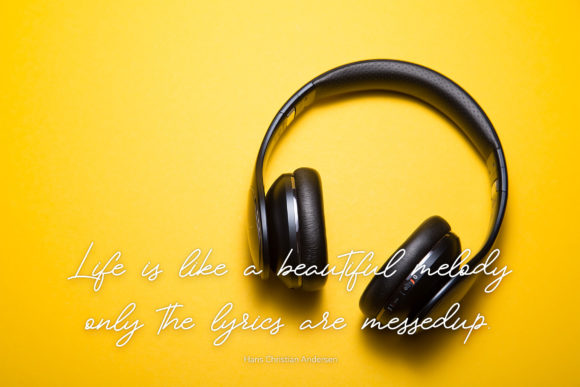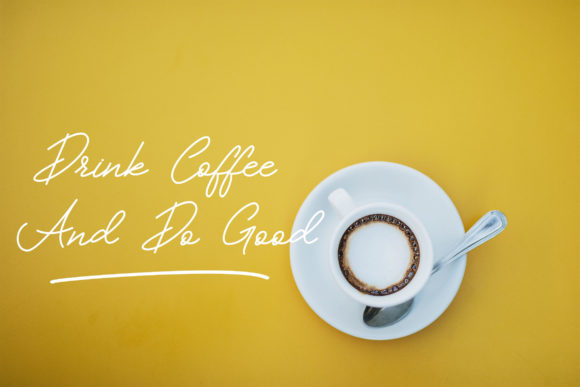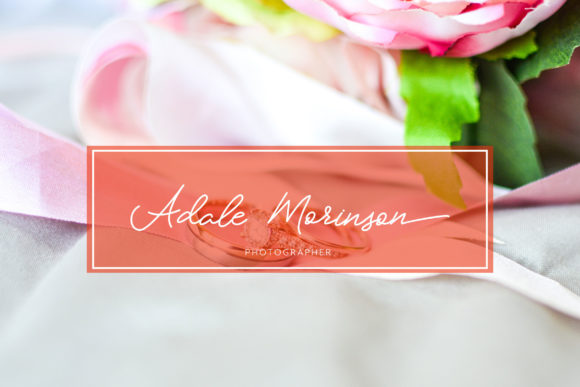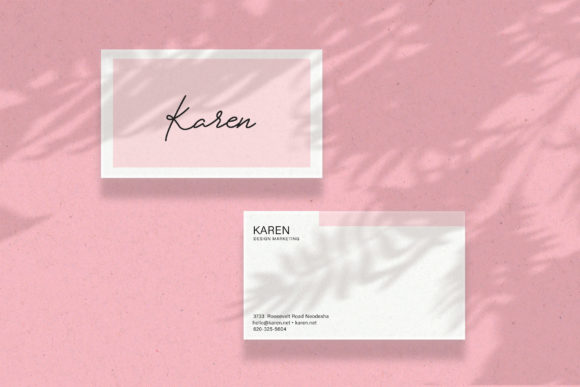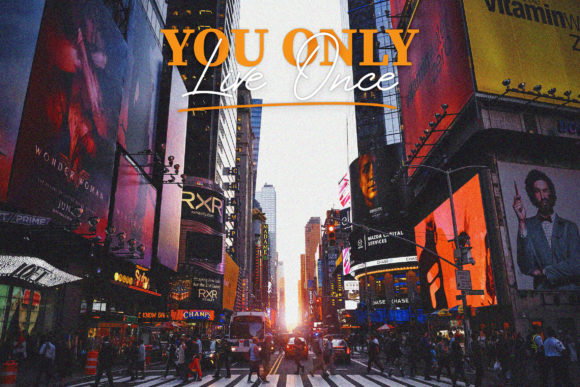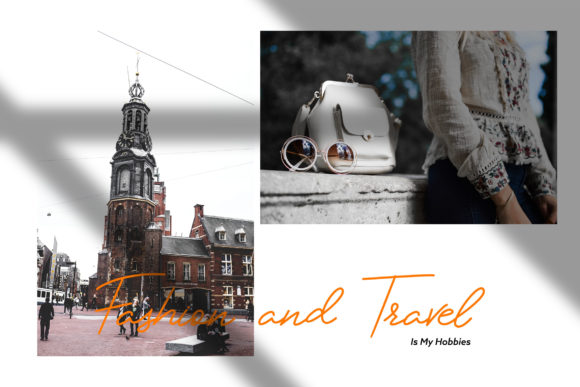
Introducing Berlindah Font: Elevate Your Crafting Projects with a Touch of Romance
In the world of crafting and design, the right font can make all the difference. It can add a personal touch, convey emotion, and elevate your project from ordinary to extraordinary. If you’re on the hunt for a font that exudes romance and sophistication, look no further than Berlindah Font. This beautiful handwritten signature script is designed to bring a natural and stylish flow to your crafting projects, making them truly unforgettable.
What is Berlindah Font?
Berlindah Font is a unique and elegant handwritten signature script that is perfect for crafters, designers, and anyone looking to add a personal touch to their projects. With its natural and stylish flow, Berlindah Font is sure to capture the hearts of those who lay eyes on it. Whether you’re working on a DIY project, creating handmade cards, or designing beautiful invitations, Berlindah Font is the perfect choice.
Key Features of Berlindah Font
- Handwritten Signature Script: Berlindah Font is a carefully crafted handwritten signature script that mimics the natural flow of handwriting.
- Natural and Stylish Flow: The font features a beautiful, organic flow that adds a touch of elegance and sophistication to any project.
- Romantic Touch: Berlindah Font is designed to add a romantic touch to your crafting projects, making them perfect for special occasions like weddings, anniversaries, and Valentine’s Day.
- Versatile: The font is versatile and can be used for a wide range of projects, from DIY crafts to commercial designs.
Why Choose Berlindah Font?
With so many fonts available, why choose Berlindah Font? Here are just a few reasons why designers and crafters love this beautiful font:
- Unique and Eye-Catching: Berlindah Font is a one-of-a-kind font that is sure to grab attention and make your projects stand out.
- Easy to Read: Despite its elegant and cursive nature, Berlindah Font is easy to read, making it perfect for use in body text or headings.
- Customizable: The font can be easily customized to fit your project’s needs, from adjusting the size and color to adding your own personal touches.
Using Berlindah Font in Your Crafting Projects
Berlindah Font is perfect for a wide range of crafting projects, including:
- Handmade Cards: Add a personal touch to your handmade cards with Berlindah Font.
- DIY Crafts: Use Berlindah Font to add a romantic touch to your DIY crafts, from scrapbooking to woodworking.
- Wedding Invitations: Make your wedding invitations truly unforgettable with Berlindah Font.
- Signs and Banners: Use Berlindah Font to create beautiful signs and banners for special occasions.
Tips and Tricks for Using Berlindah Font
Here are a few tips and tricks for getting the most out of Berlindah Font:
- Pair with Other Fonts: Berlindah Font pairs beautifully with other fonts, so don’t be afraid to experiment with different combinations.
- Adjust the Size: Adjust the size of Berlindah Font to fit your project’s needs, from small headings to large banners.
- Add a Personal Touch: Use Berlindah Font to add a personal touch to your projects, from customizing the color to adding your own illustrations.
In conclusion, Berlindah Font is a beautiful and elegant handwritten signature script that is perfect for crafters, designers, and anyone looking to add a romantic touch to their projects. With its natural and stylish flow, Berlindah Font is sure to capture the hearts of those who lay eyes on it. Whether you’re working on a DIY project, creating handmade cards, or designing beautiful invitations, Berlindah Font is the perfect choice. So why wait? Download Berlindah Font today and start elevating your crafting projects to the next level!